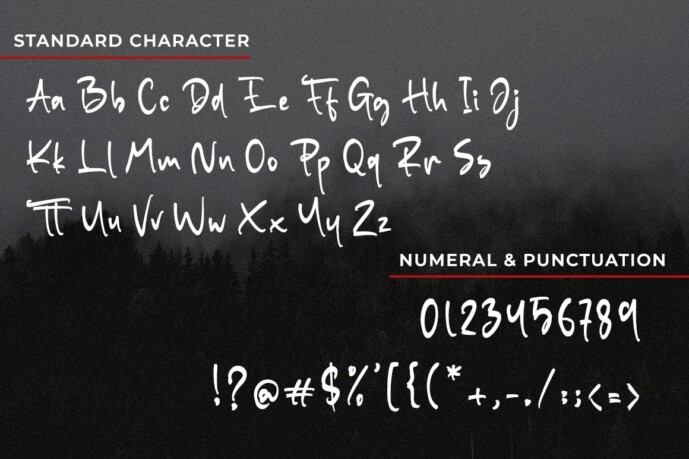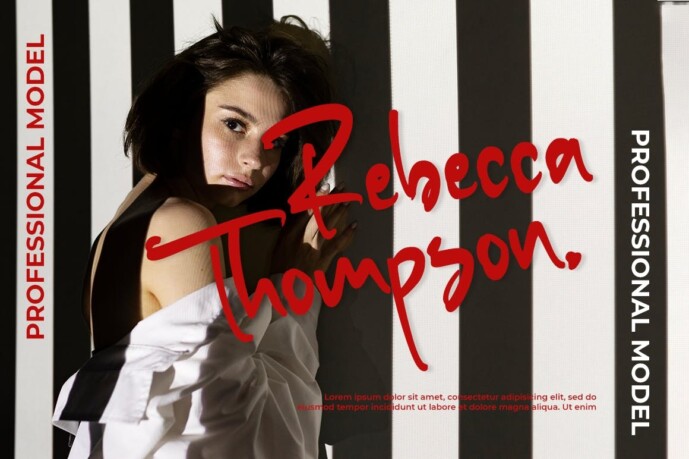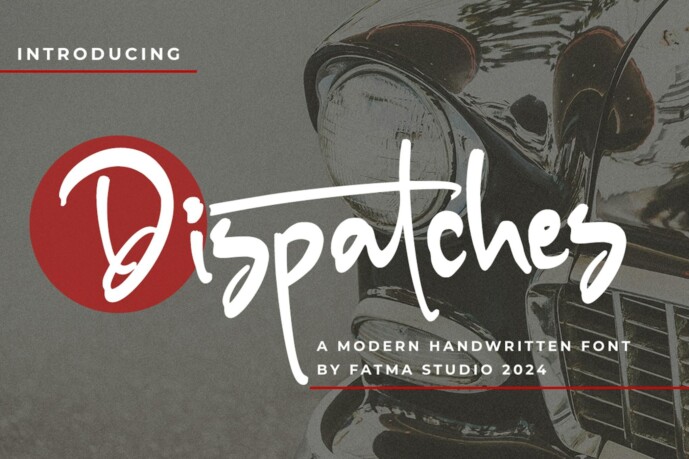
Dispatches Font
Dispatches Font is a beautiful and bold brushed handwritten font designed to add a touch of elegance to your headlines and logotype projects. This font reads as strong, confident and dynamic and can add a lot of nostalgic character to your designs.